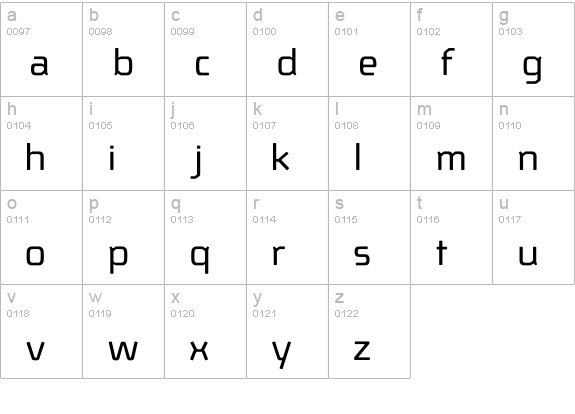
HamRadioWorking Font Details
HamRadioWorking font is a versatile and stylish typeface that is perfect for any design project related to ham radio enthusiasts. This font was meticulously crafted to capture the essence of the ham radio community, with its intricate details and bold letterforms. With its clean lines and modern aesthetic, HamRadioWorking font is sure to make a statement in any design. Whether you are creating a logo for a ham radio club, designing a brochure for a ham radio event, or simply adding a touch of authenticity to your website, this font will not disappoint. One of the best features of HamRadioWorking font is that it is available for free download at FontsMarket.com. This means that you can easily access this font and use it in your projects without any hassle. It is a true gift to the ham radio community, providing a high-quality font that is freely available for anyone to use. The versatility of this font is truly remarkable. It comes in multiple weights and styles, allowing you to choose the perfect combination for your design needs. Whether you prefer a bold and impactful look or a more subtle and elegant aesthetic, HamRadioWorking font has got you covered. In addition to its visual appeal, HamRadioWorking font also offers excellent legibility. Its clear and well-defined letterforms ensure that your message is easily readable, even from a distance. This is particularly important in the world of ham radio, where effective communication is key. So, if you are looking for a font that combines style, versatility, and legibility, look no further than HamRadioWorking font. Download it for free at FontsMarket.com and take your ham radio designs to the next level.